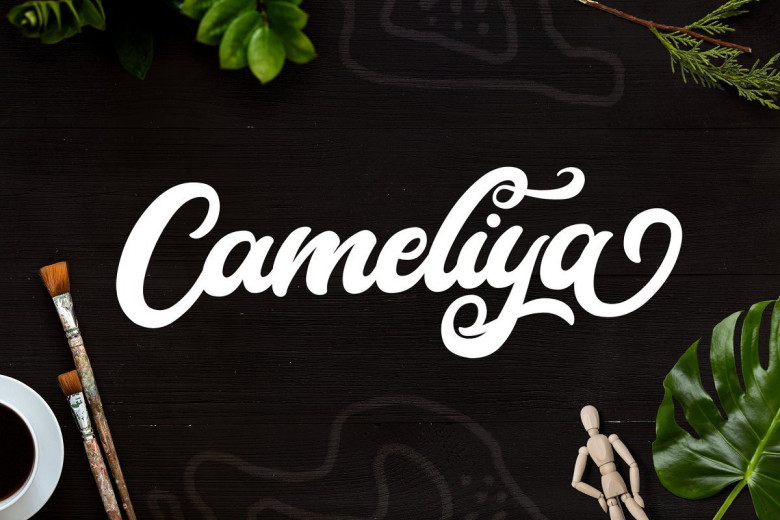
Cameliya Bold Calligraphy Script Font
Cameliya Bold Script Font is a stylist lovely calligraphy font with handwritten, sophisticated flows. Cameliya font offers beautiful typographic harmony for a diversity of design projects, including logos & branding, wedding designs, social media posts, advertisements & product designs.